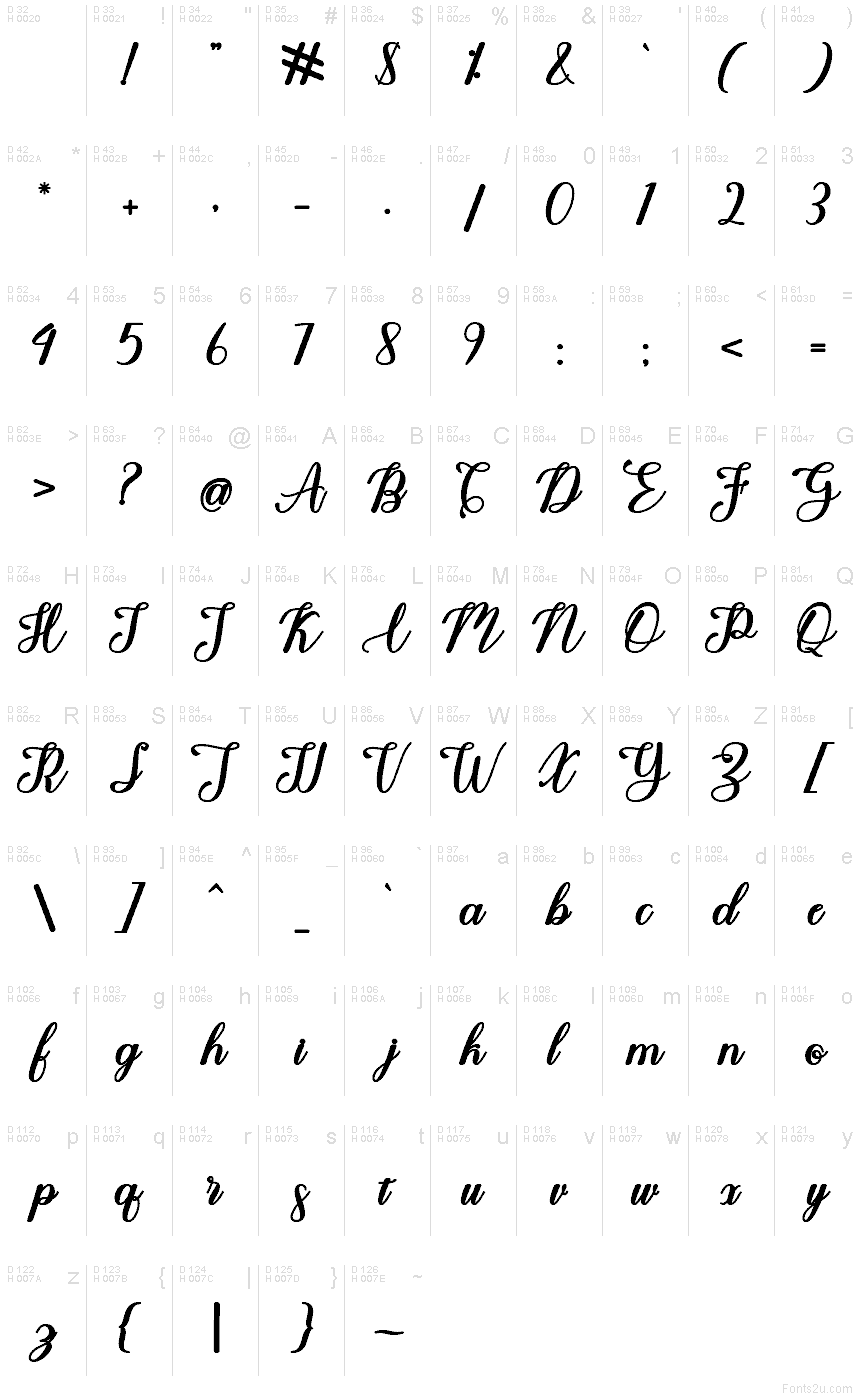
Elora Bold
Elora Bold font, part of the Elora family designed by Wais Alqarni, is a captivating calligraphy style that radiates elegance and sophistication. Its fluid strokes and graceful curves create a sense of movement, making it perfect for designs that require an artistic touch. The bold weight enhances its presence, ensuring each character stands out with clarity and distinction.
Ideal for wedding invitations, luxury branding, and refined editorial designs, Elora Bold adds a touch of class to any project. Its timeless appeal ensures versatility across various creative applications while evoking an air of refined beauty.